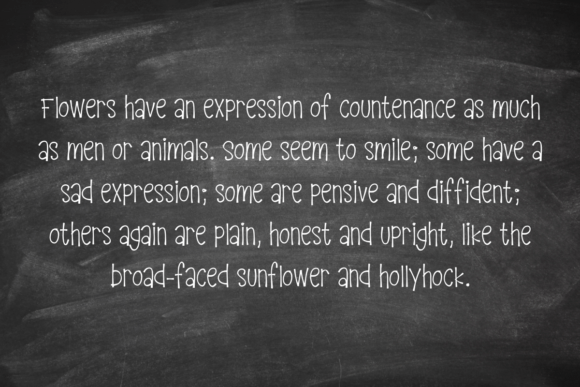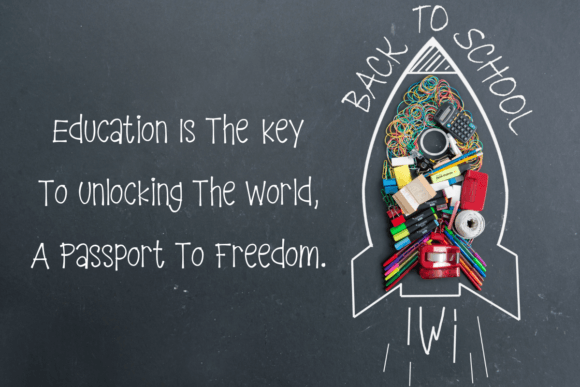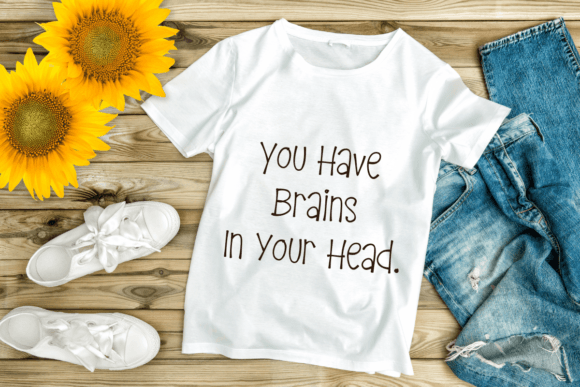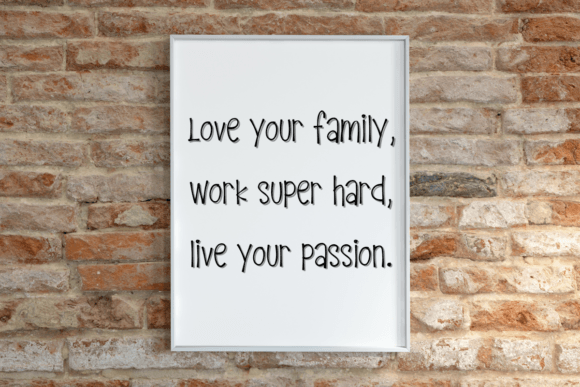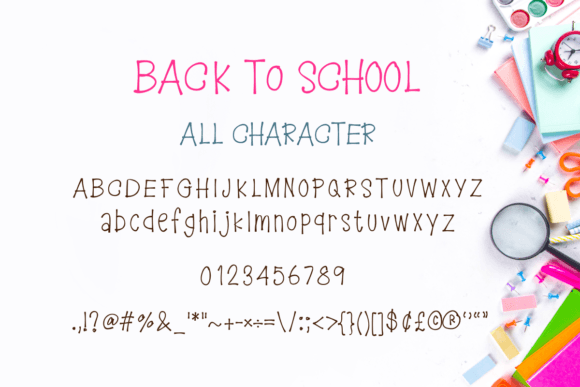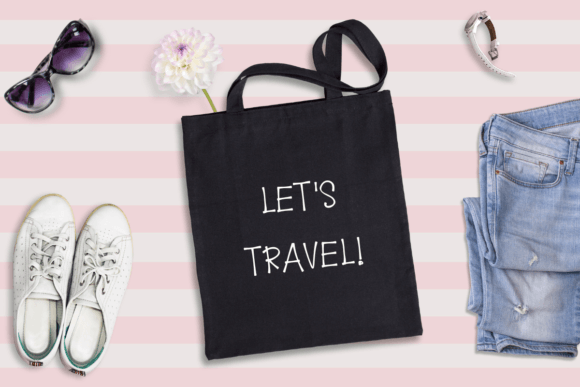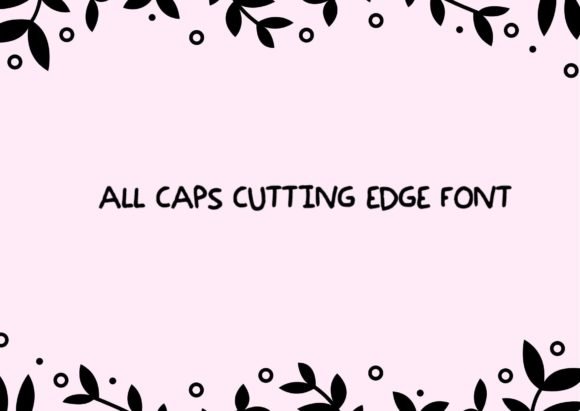
Getting Ready for a Bright New Year: The Back to School Font
There’s something magical about the first day of school. The crisp air, the fresh notebooks, and the excitement of meeting new friends all combine to create a sense of possibility and promise. As designers, we’re often tasked with capturing that same feeling in our work – and the right font can make all the difference.
Enter the Back to School Font, a charming and playful handwritten font designed specifically with kids and school projects in mind. But its appeal extends far beyond the classroom – this font is perfect for posters, t-shirts, invitations, and more. With its PUA encoding, designers can access all the glyphs and swashes they need to create truly special designs. Whether you’re a seasoned pro or just starting out, the Back to School Font is a valuable addition to any designer’s toolkit.
Key Features of “Back to School Font”
- Unique Characteristics: The font features a playful, handwritten style with a mix of cursive and print elements, making it perfect for adding a personal touch to educational materials.
- Font Style: The font includes both regular and bold styles, allowing users to add emphasis and create visual interest in their designs.
Designer Review: “Back to School Font”
As a designer, I was excited to dive into “Back to School Font” and see what it has to offer. The font has a playful and nostalgic feel that’s perfect for projects related to education and learning. Here are my thoughts:
- The font’s unique and quirky design makes it stand out from more traditional sans-serif fonts.
- The varied font sizes and weights make it easy to create visual interest and hierarchy in your designs.
- The font is highly legible, even at smaller sizes, making it perfect for body text and captions.
- The font’s nostalgic feel may not be to everyone’s taste, and some users may find it too childish or kitschy.
- The font’s varied design may make it difficult to use in situations where consistency is key, such as in corporate branding or formal documents.
Overall, I think “Back to School Font” is a fun and versatile font that’s perfect for designers who want to add some personality to their projects. While it may not be suitable for every design scenario, it’s a great choice for educational materials, children’s projects, and other playful designs.
Use the “Back to School Font” for creating eye-catching posters, flyers, and invitations for back-to-school events.
Combine the font with colorful graphics and images to create a visually appealing design.
Experiment with different font sizes and styles to add emphasis and hierarchy to your text.
Back to school posters
Invitations for school events
Summer camp flyers
Education-related social media graphics